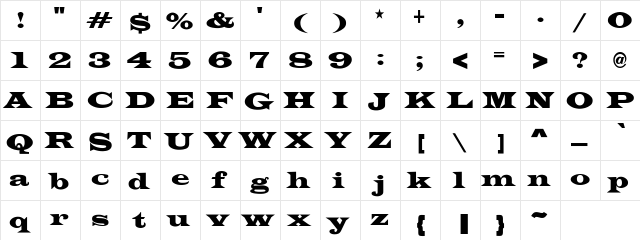
LatinWideCnd-No Regular
LatinWideCnd-No takes a measured approach to typography — its balanced proportions and neutral character make it a reliable workhorse for both digital and print work.